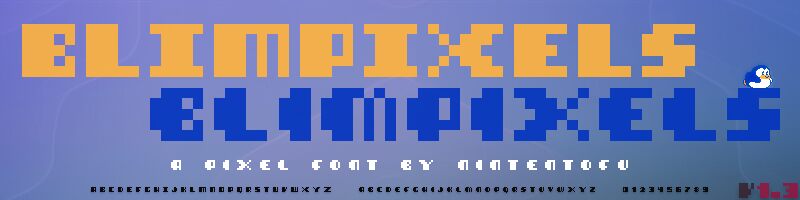
Blimpixels
fixed a few very minor kinks, one being the two V's were swapped to better match the hard and soft edges, minor changes to numericals 2 & 7. Lowercase m was fixed also cause of error. Please update to new version!
Blimpixels, an original pixel font by nintentofu
Blimpixels is a true-type pixel font featuring uppercase-style letters with a thick, sleek and pudgy look. Includes both hard-edge (capitals) and soft-edge (lowercase) versions.